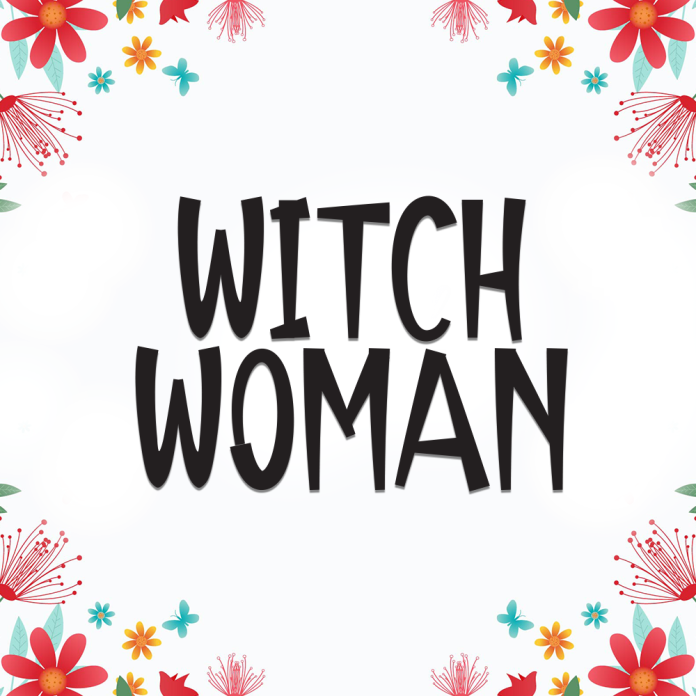
Witch Woman is a bold and mystical display font, perfect for designs that need a touch of mystery and magic. With its unique, dramatic letterforms, this font brings a powerful and enchanting vibe to your projects.
Strong and eye-catching display style
Ideal for Halloween themes, fantasy titles, and mystical branding
Distinctive shapes that add character and drama
Includes uppercase, lowercase, numbers, and punctuation